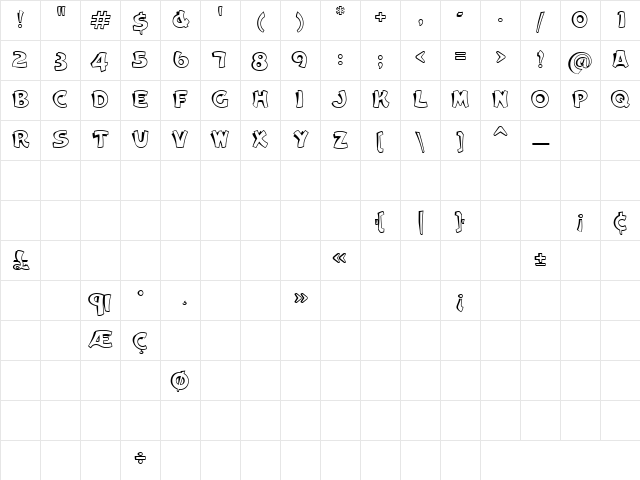
Complete Cameo Regular glyph index. Displaying only characters natively supported by Cameo Regular font.
Cameo is a composed and adaptable typeface that performs quietly and consistently across a wide range of design contexts.
Who designed the Cameo Regular font?
This font was published by Cameo Outline Shaded - Panache Graphics, Ltd. Check the technical specs section for copyright and designer details.